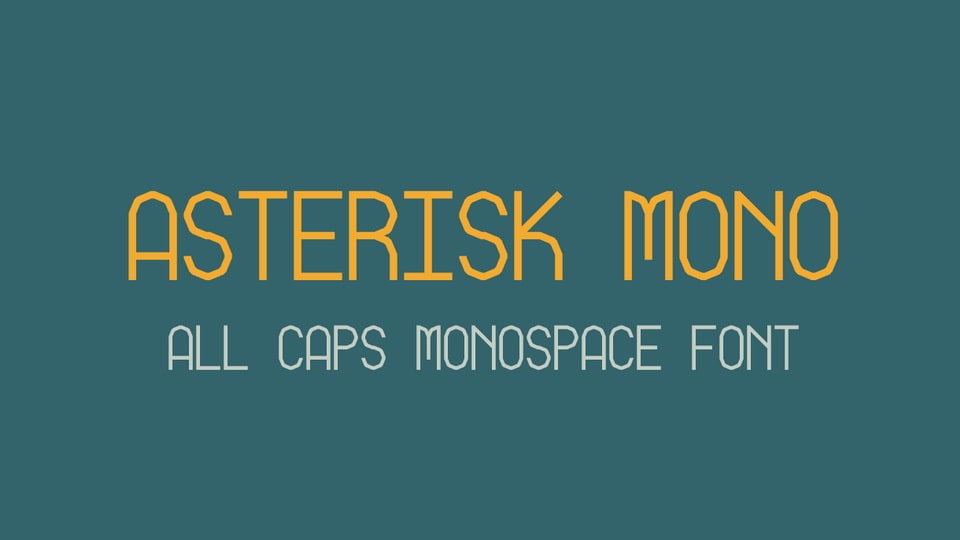
Download Asterisk Mono font, a monospaced typeface defined by its sharp, angular forms and geometric precision that delivers a bold, modern aesthetic.